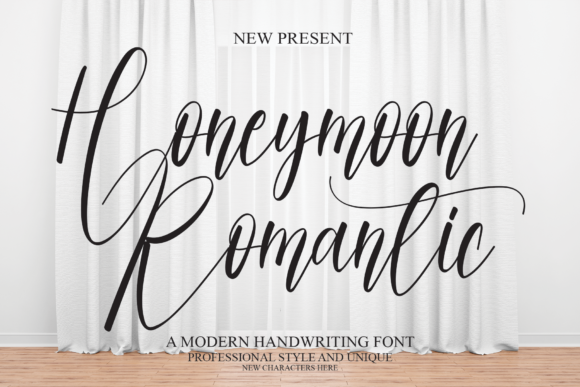
Prepare to be swept away by the enchanting allure of Honeymoon Romantic, a script font that will ignite the flames of passion in your designs. This captivating creation from the visionary Roronoa zoro.S.P.D. is a masterpiece that embodies the essence of timeless elegance and modern sophistication.
Honeymoon Romantic is not merely a font; it's a whispered promise of eternal love, a gentle caress that transforms words into captivating works of art. Its graceful curves and flowing lines dance across the page, evoking a sense of ethereal beauty that will leave you breathless.
Picture the glow of candlelight illuminating an exquisite wedding invitation adorned with Honeymoon Romantic's enchanting script. Each letter becomes a cherished memory, an indelible mark of the love and joy that fills the air. Or envision the allure of a captivating logo, where Honeymoon Romantic's elegant strokes command attention and leave a lasting impression.
With Honeymoon Romantic, your social media posts will blossom into vibrant expressions of love and creativity. Its playful yet refined character adds a touch of charm to every message, captivating your audience and drawing them into your enchanting world.
Whether you're crafting heartfelt letters, designing unforgettable branding, or adding a touch of romance to your digital presence, Honeymoon Romantic is the perfect choice. It's a font that speaks to the heart, leaving an enduring mark on all who behold its beauty.
Embrace the magic of Honeymoon Romantic and let your designs soar to new heights of elegance and charm. With this captivating script font, you'll create masterpieces that will be cherished for a lifetime.